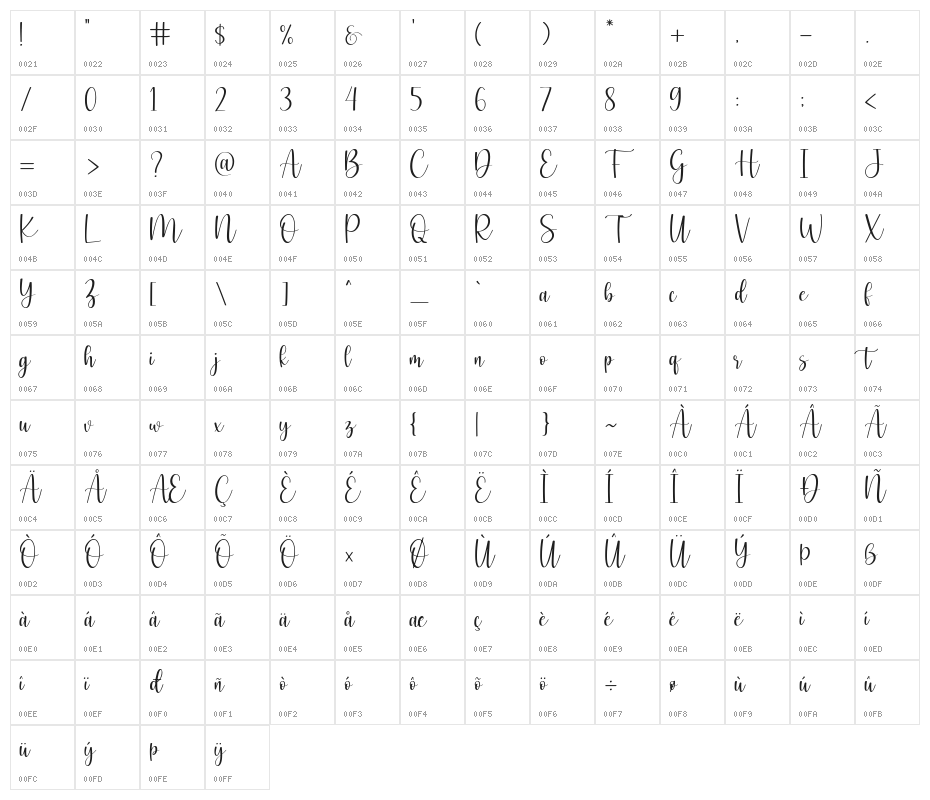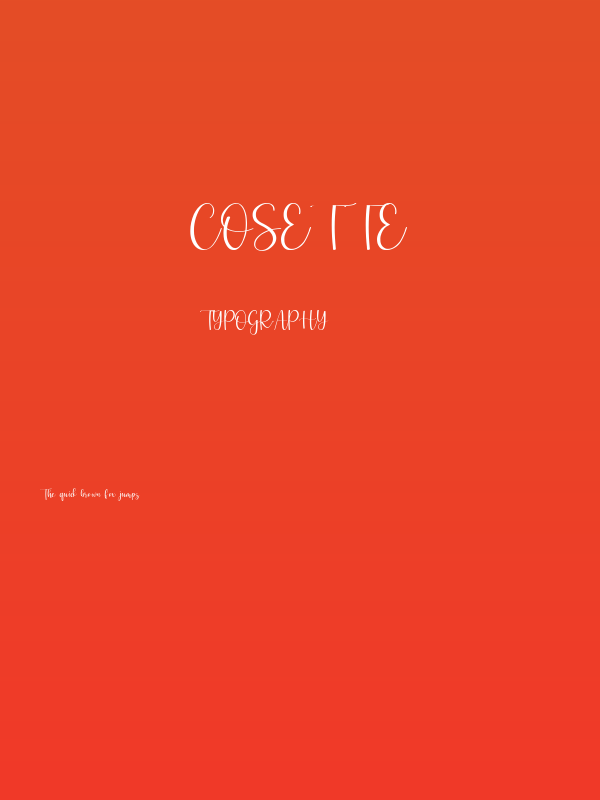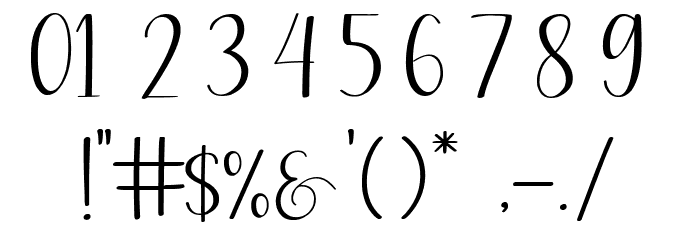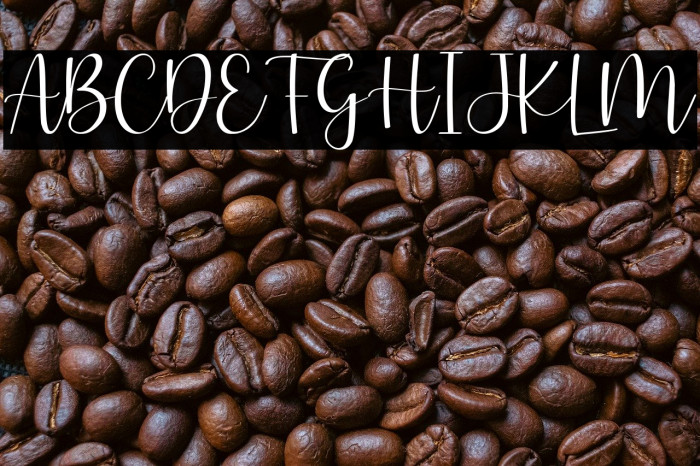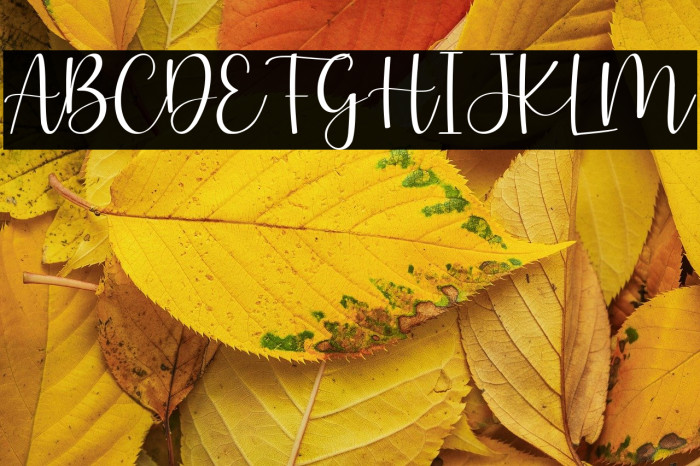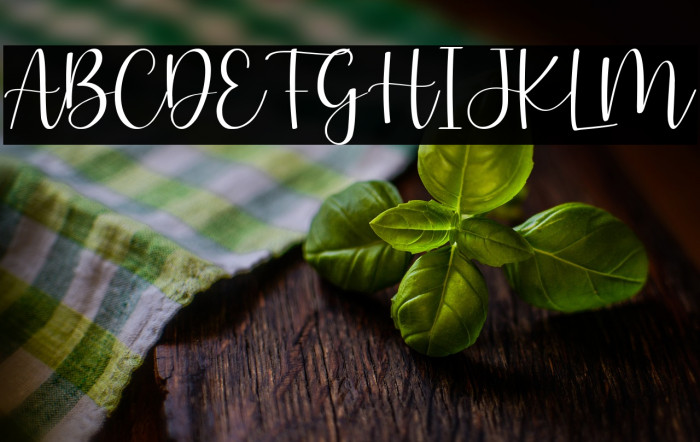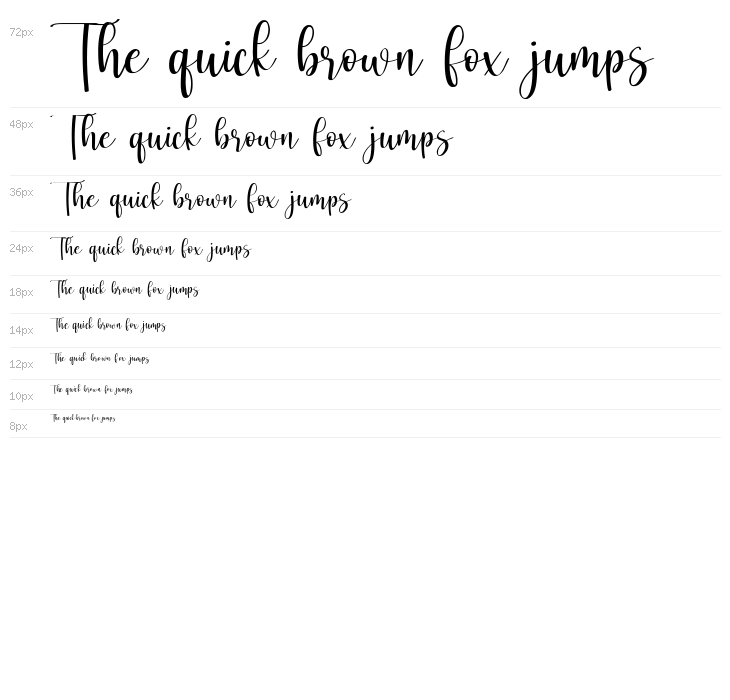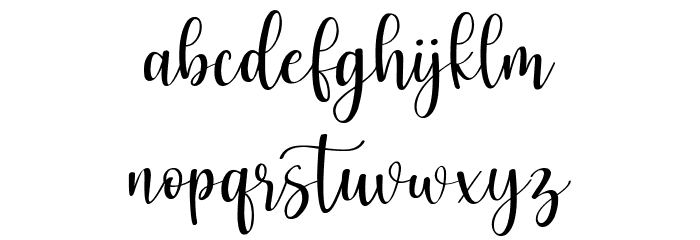
Cosette Font
Cosette Description
This font features an elegant and flowing script style, characterized by its smooth, cursive strokes and graceful curves. The uppercase letters are tall and slightly narrow, with a consistent slant that adds a sense of movement and fluidity. The lowercase letters are more compact, maintaining the same slant and fluidity, which creates a harmonious balance between the two cases. The numerals are designed to match the overall style, with a slight variation in stroke thickness that adds visual interest. The special characters are thoughtfully integrated, maintaining the font's cohesive aesthetic. This font's overall appearance is sophisticated and artistic, making it suitable for a variety of creative applications.